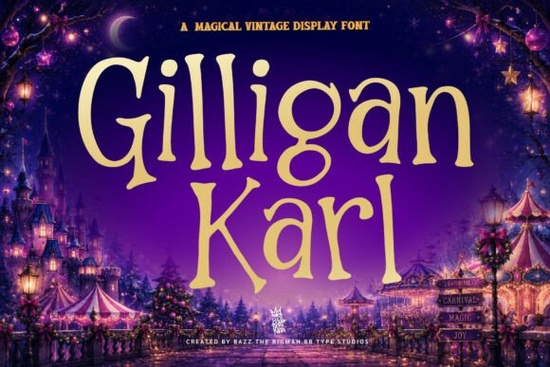
If you’ve been searching for a display font that feels like it stepped out of a storybook or a cozy holiday market, Gilligan Karl Font might be exactly what your next project needs. It’s not flashy or overly trendy instead, it carries a quiet charm that works beautifully for seasonal designs, children’s books, packaging, or even posters that want to feel personal and nostalgic. The curves are soft but intentional, the letterforms feel hand-drawn without being messy, and there’s an unmistakable warmth in how each character sits on the page.
What makes this font especially useful is how well it bridges moods. You can use it for something playful like a carnival flyer, or something tender like a Christmas card and it never feels out of place. That kind of flexibility is rare in display fonts, which often lean too hard into one aesthetic. Gilligan Karl doesn’t shout; it invites. And if you’re designing for print-on-demand products, small business branding, or handmade crafts, that inviting quality matters more than you think.
What kinds of projects does this font work best for?
Because of its vintage-meets-whimsical personality, Gilligan Karl shines in contexts where emotion and storytelling matter:
- Children’s books and educational materials the friendly shapes help keep young readers engaged without overwhelming them.
- Seasonal packaging think hot cocoa labels, cookie boxes, or gift tags that need to feel handmade and heartfelt.
- Event posters especially for community fairs, holiday markets, or theater productions with a nostalgic twist.
- Small business logos or shop signage if your brand leans cozy, artisanal, or family-run, this font adds instant character.
- Social media graphics surprisingly readable at larger sizes, and stands out without needing heavy effects.
It’s also worth noting that while it looks handcrafted, the spacing and kerning are clean enough to use confidently in professional layouts. You won’t spend half your time adjusting letters just to make them sit right a real plus when you’re juggling multiple projects.
How does it compare to other vintage-inspired fonts?
If you’ve browsed Creative Fabrica’s display fonts before, you might have come across Magic Retro, which leans more into 70s psychedelia, or Death Star, which obviously has a very different sci-fi edge. There’s also Aaksaraan Valeriana, with its elegant serif structure, and Stacked Remember, which plays with layered letterforms for bold impact.
Gilligan Karl doesn’t try to compete with those. Instead, it carves out its own space less about retro futurism or dramatic contrast, and more about comfort, memory, and gentle nostalgia. It’s the font you’d choose if you want your audience to feel like they’re being handed something wrapped in tissue paper, tied with twine, and smelling faintly of cinnamon.
Is it easy to pair with other typefaces?
Yes and that’s another reason it’s so practical. Because Gilligan Karl has such distinct personality, you’ll want to pair it with simple, neutral sans-serifs or clean serifs. Think fonts like Montserrat, Lora, or even system fonts like Georgia or Arial if you’re going for accessibility. The goal is to let Gilligan Karl be the star without fighting for attention.
A good rule of thumb: use it for headlines, titles, or short phrases. Don’t set paragraphs in it not because it’s unreadable, but because its charm lies in its decorative nature. Let it do what it does best: draw the eye, then step back.
You can explore licensing options, download previews, and even test how it looks with your own text over at Gilligan Karl Font. Creative Fabrica offers both personal and commercial licenses, which is especially helpful if you’re using it for client work or selling products online.
And if you’re already browsing, don’t forget to check out their full Gilligan Karl collection page sometimes they bundle it with coordinating illustrations, textures, or alternate glyphs that add even more depth to your designs.
Before you download, here’s a quick checklist:
- Do you need a font with emotional warmth? If yes, Gilligan Karl delivers.
- Are you pairing it with a clean, simple body font? This keeps your design balanced.
- Will it be used for headlines or short phrases? Best results come from limited, intentional use.
- Have you tested it at different sizes? Especially if printing some delicate details may need scaling up.
Fonts like this don’t come around every day. When you find one that feels this human, hold onto it. You’ll reach for it again and again not because it’s trendy, but because it quietly makes everything feel a little more special.